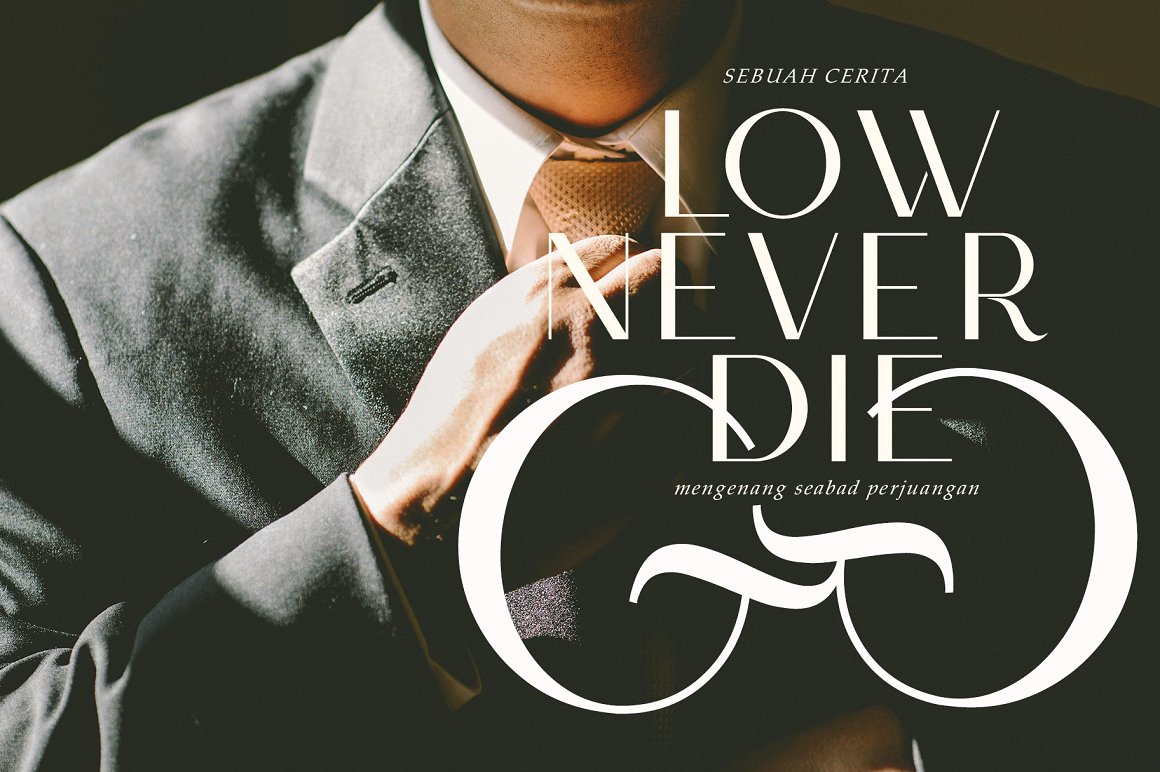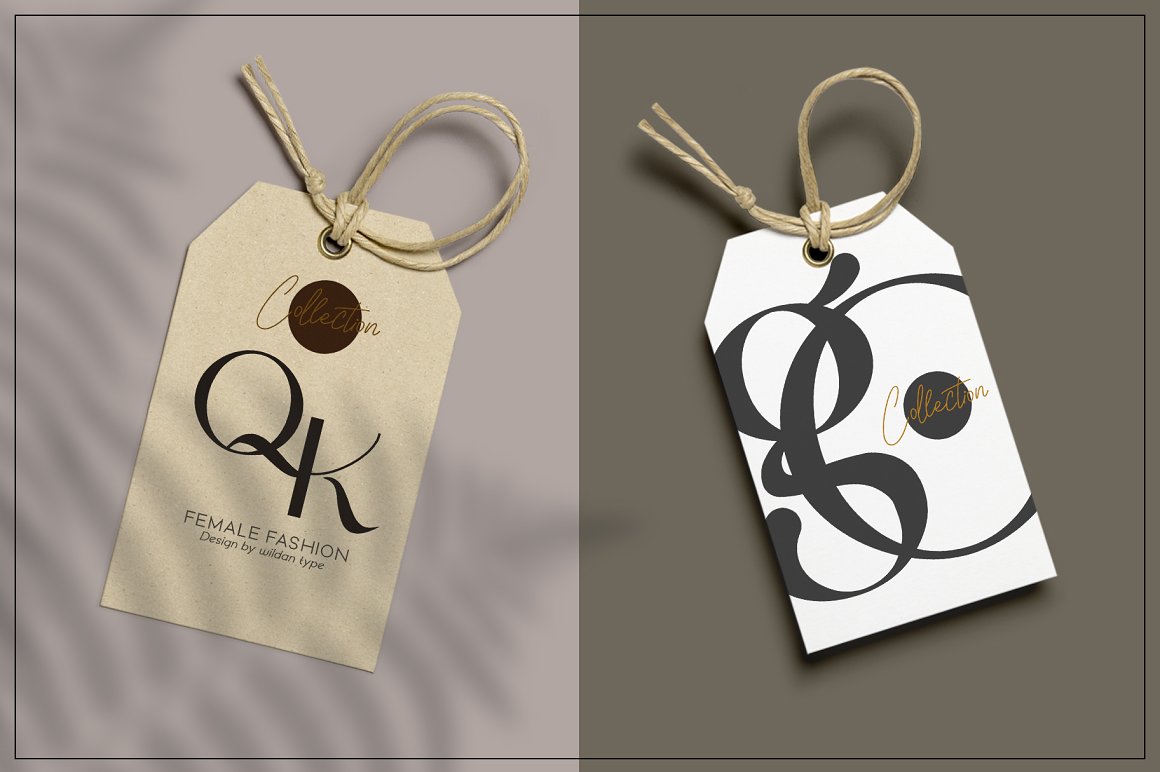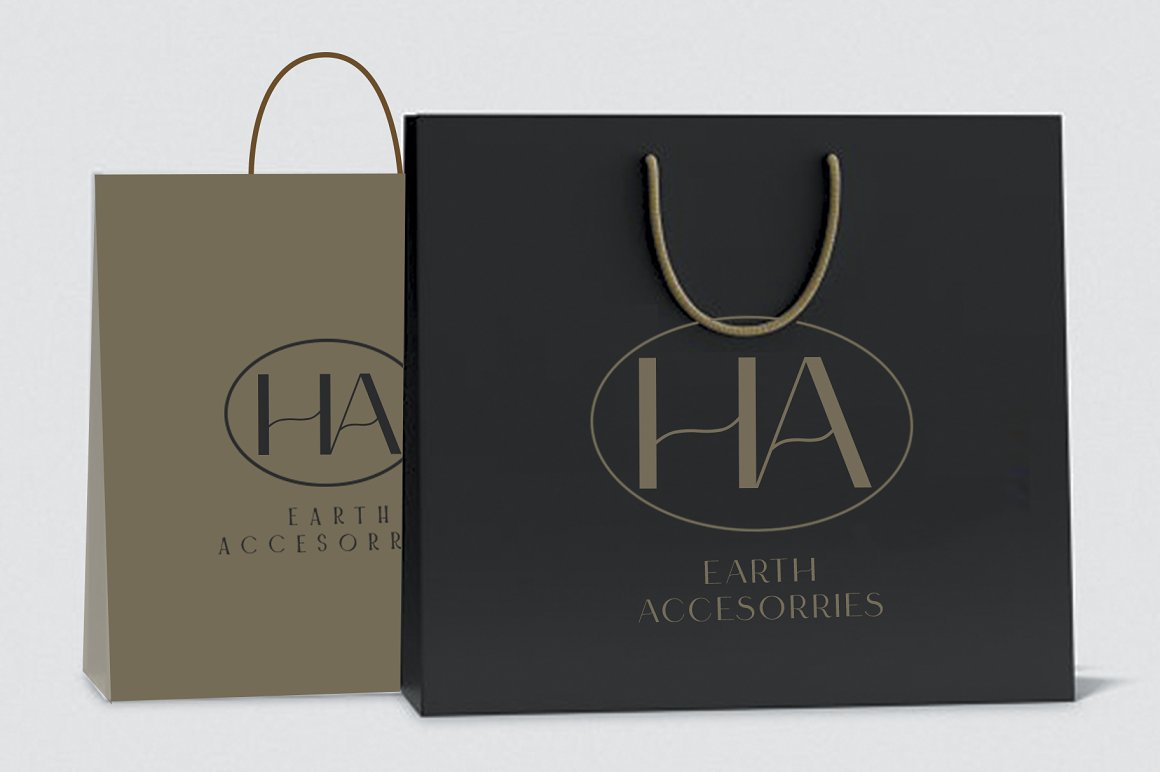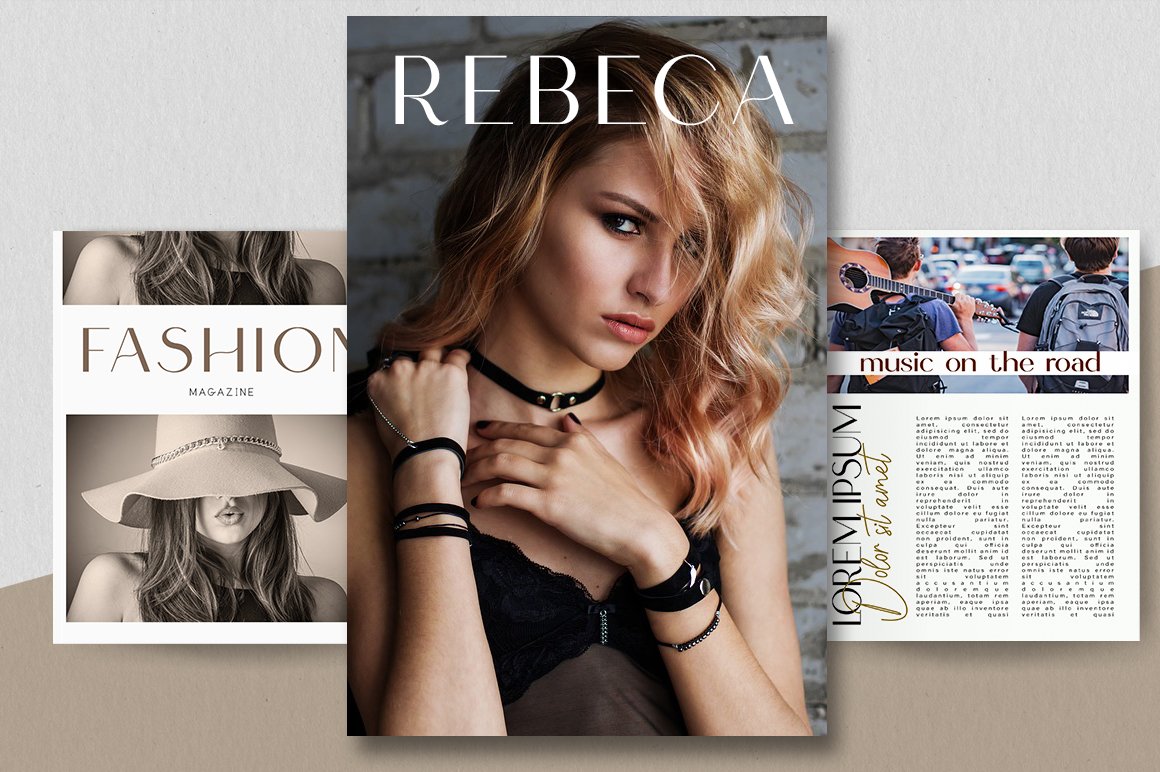
King Graphics Font
King Graphics Sans Serif Font
This is an elegant sans serif font. It perfectly used for product presentation, elegant logo design, packaging or invitation cards.